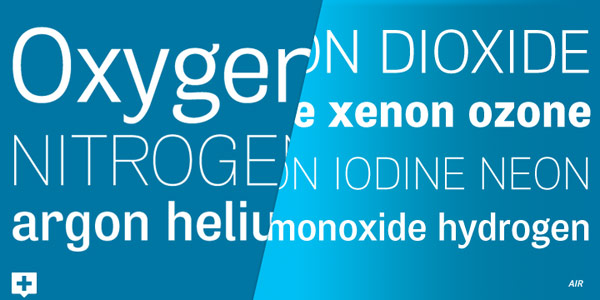
Air, a huge 81-font superfamily.
Font designer Neil Summerour of foundry Positype has created the Air Superfamily in order to make something new combined with lots of familiar details. He wanted to design a huge and diverse sans serif font family that provides countless typographic features and flexibility. The result is ‘Air’, a huge superfamily of 81 fonts in total. The basic shape is based on Aaux Next, a typeface that he has developed years ago. Aaux Next has a mechanical and structured appearance. Neil Summerour wanted to combine this with a more friendly and pleasant style.
The Air Superfamily currently includes nine weights ranging from Thin to Black plus condensed and compressed styles as well as both oblique and italic versions for each font. All italics are designed with a slope of 7 degree, while the oblique versions are designed in 12 degree.
The font family is meant to be a perfect choice for both web and print. You can use this functional, professional, and highly legible superfamily for a wide variety of typographic projects. Air’s thin and bold versions are great for tall headlines, while the regular weights work great for the use in long and small texts. Ever single font of this superfamily comes with more than 900 characters including ligatures, discretionary ligatures, stylistic alternates, fractions, proportional/tabular lining and proportional/tabular oldstyle figures, numerators, denominators, ordinals, superiors, inferiors, small caps, case-sensitive functionality and support for multiple languages.